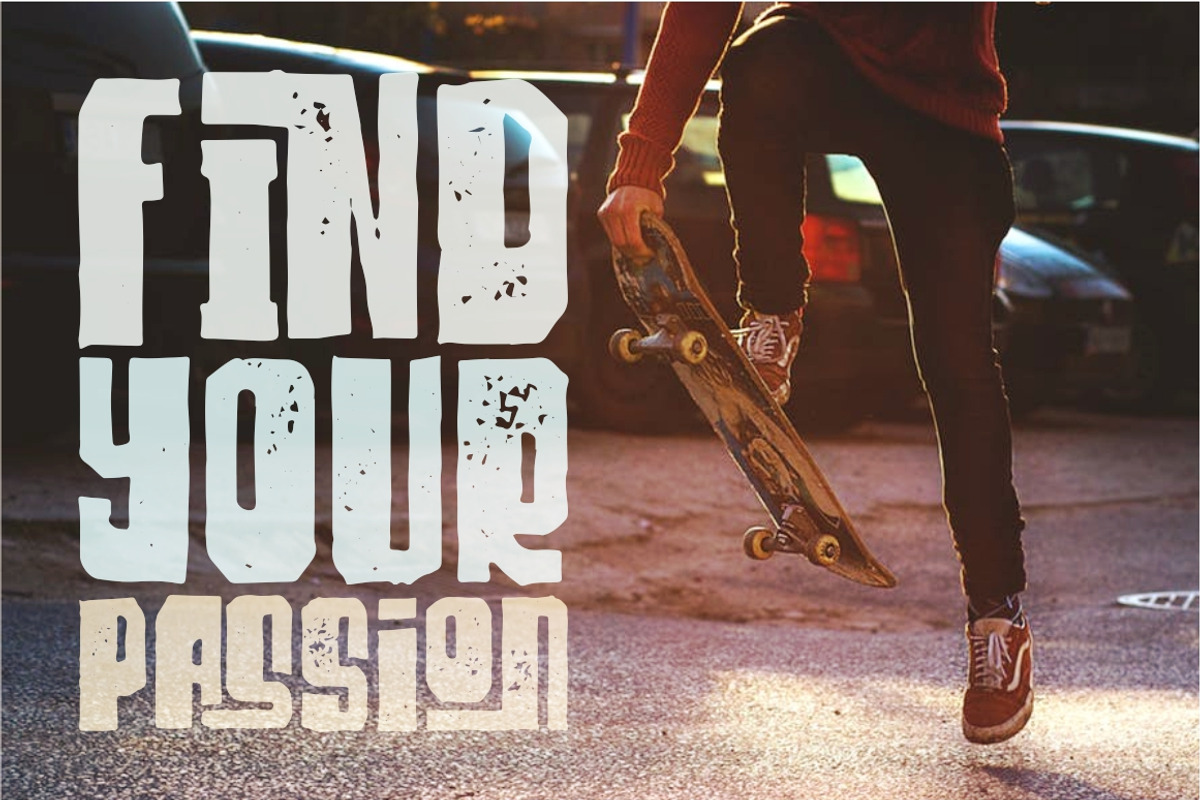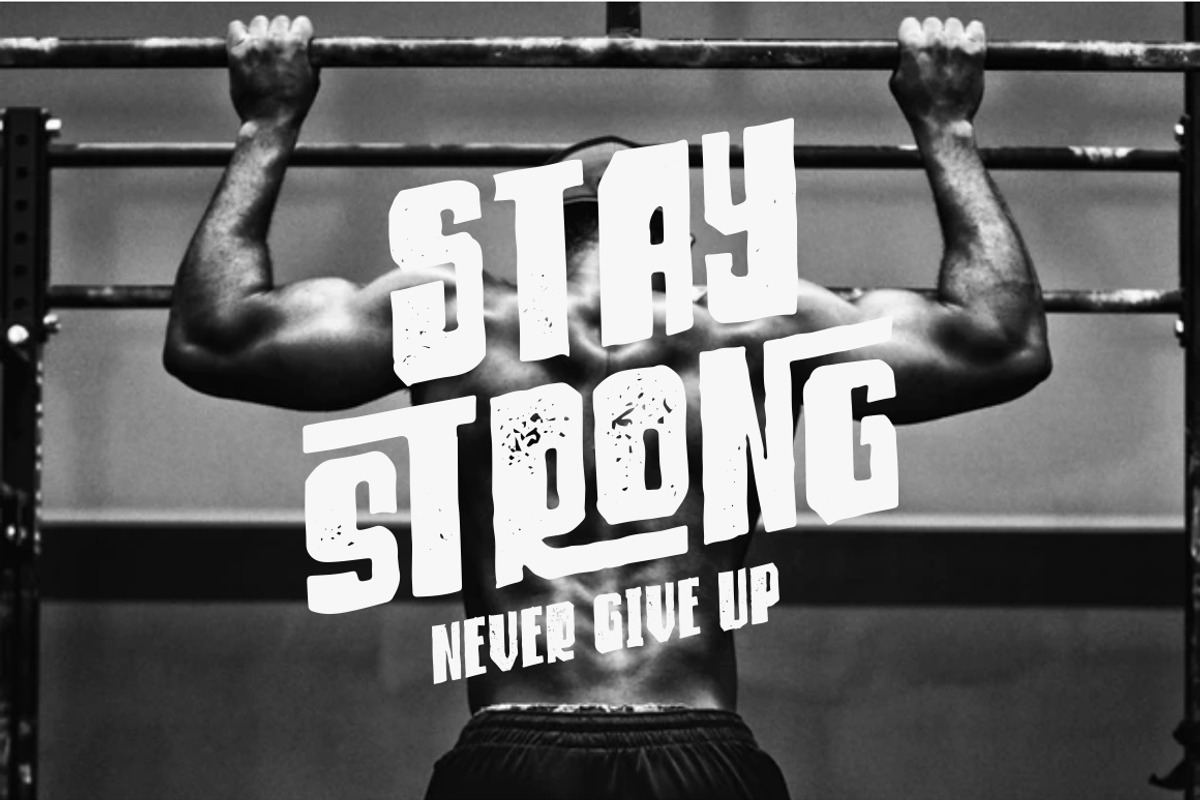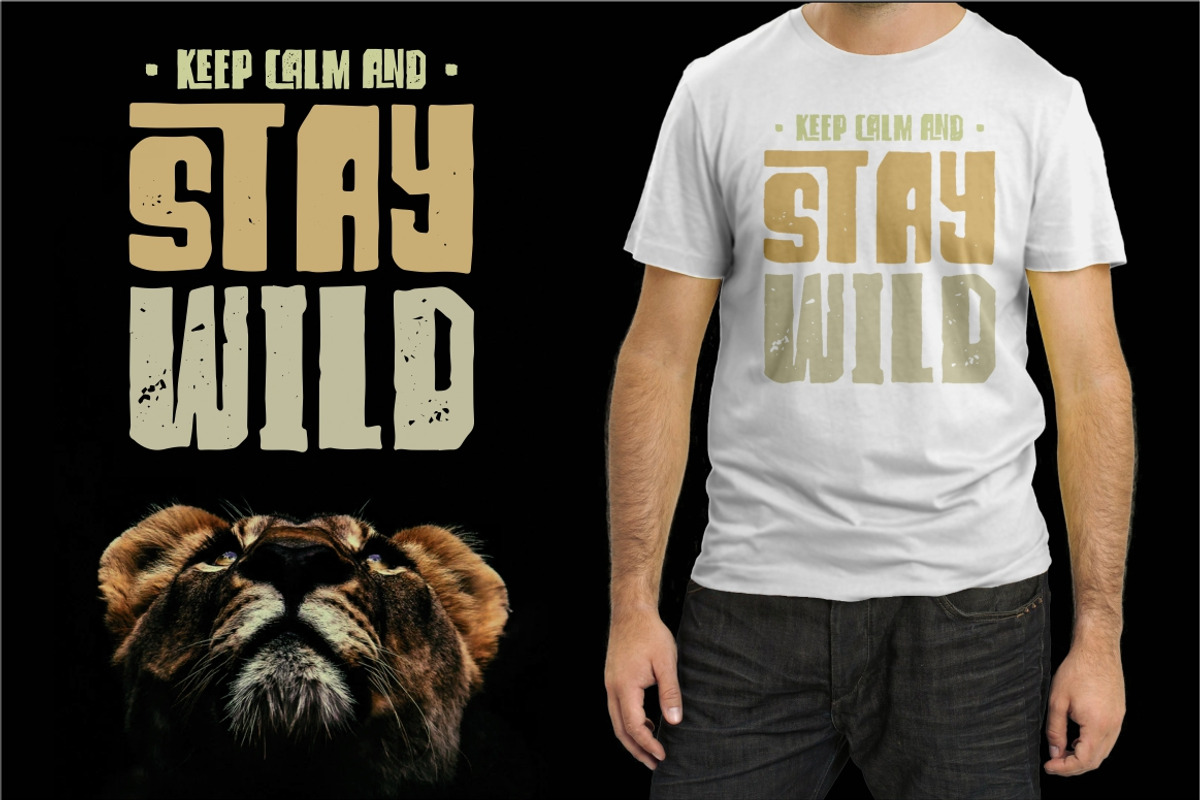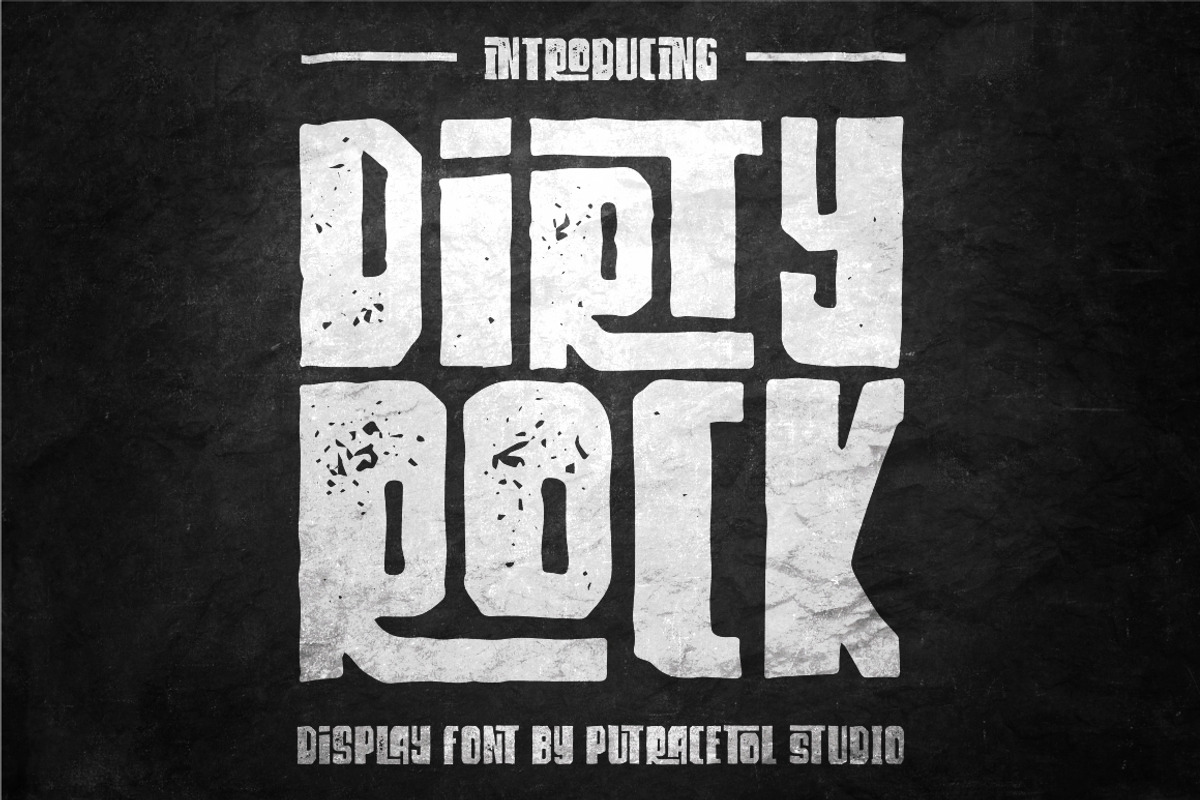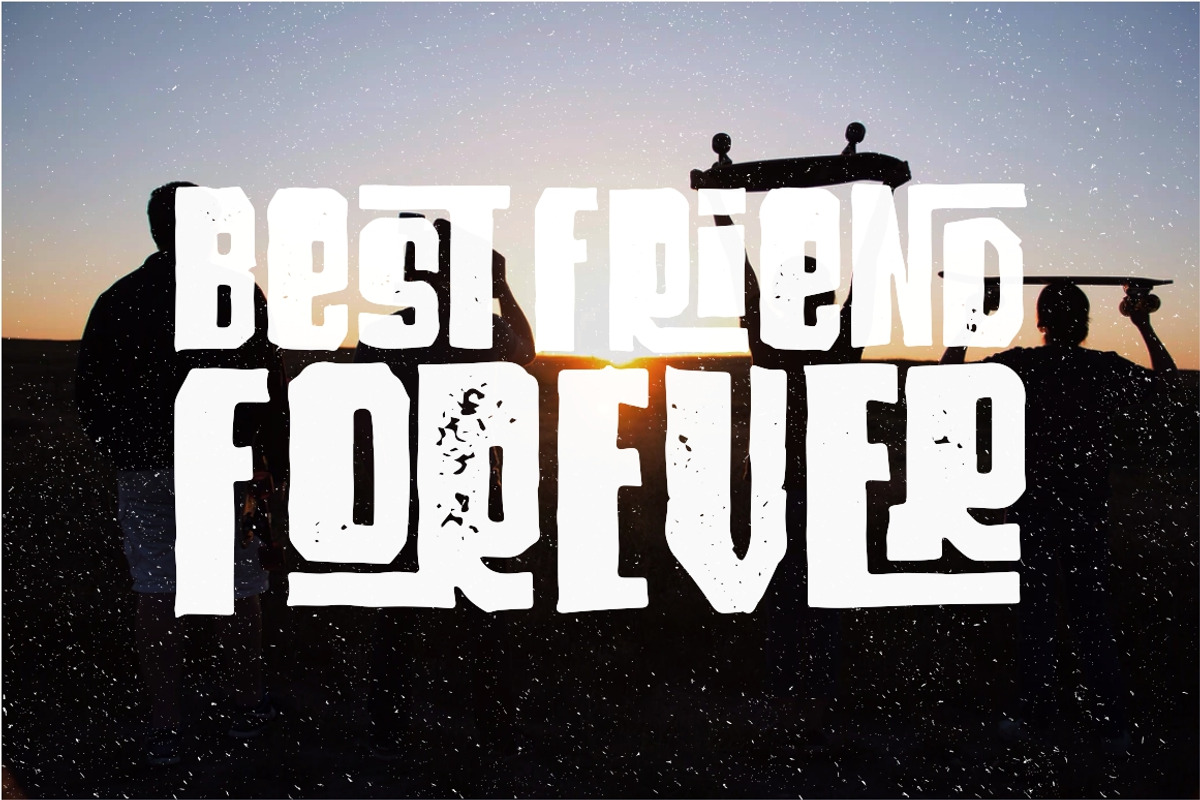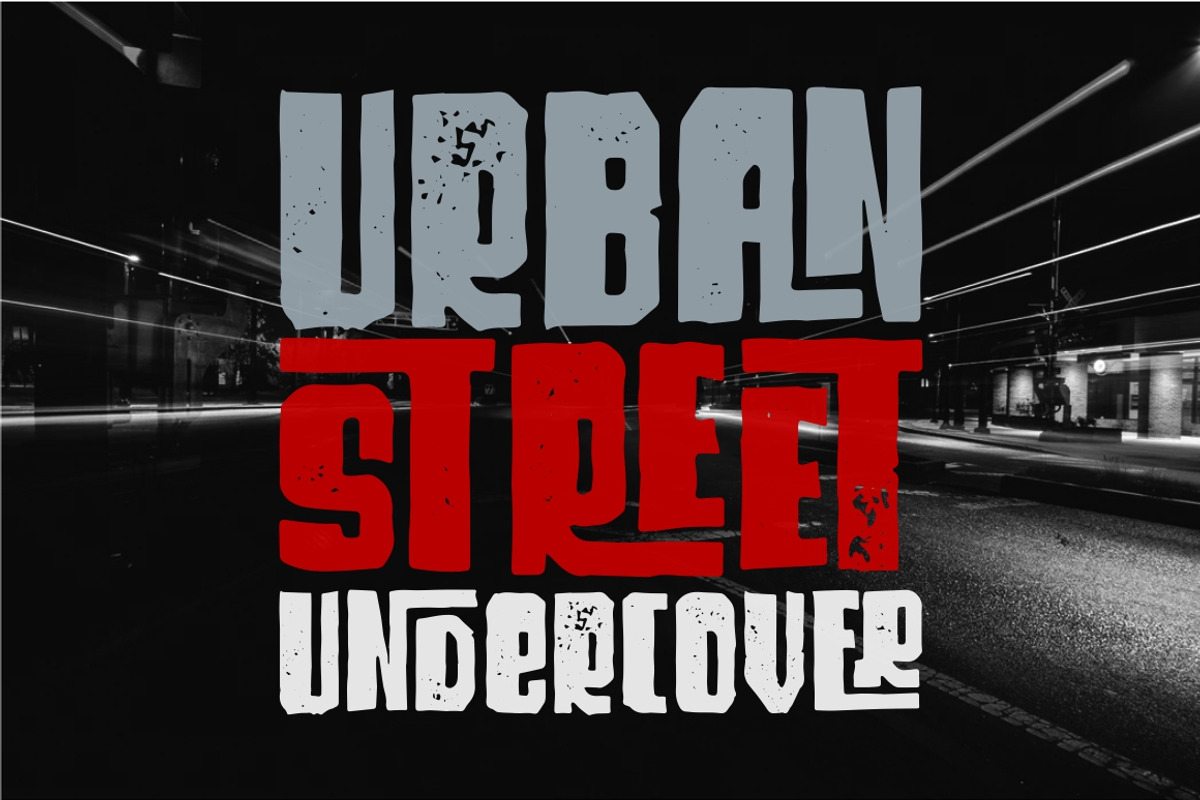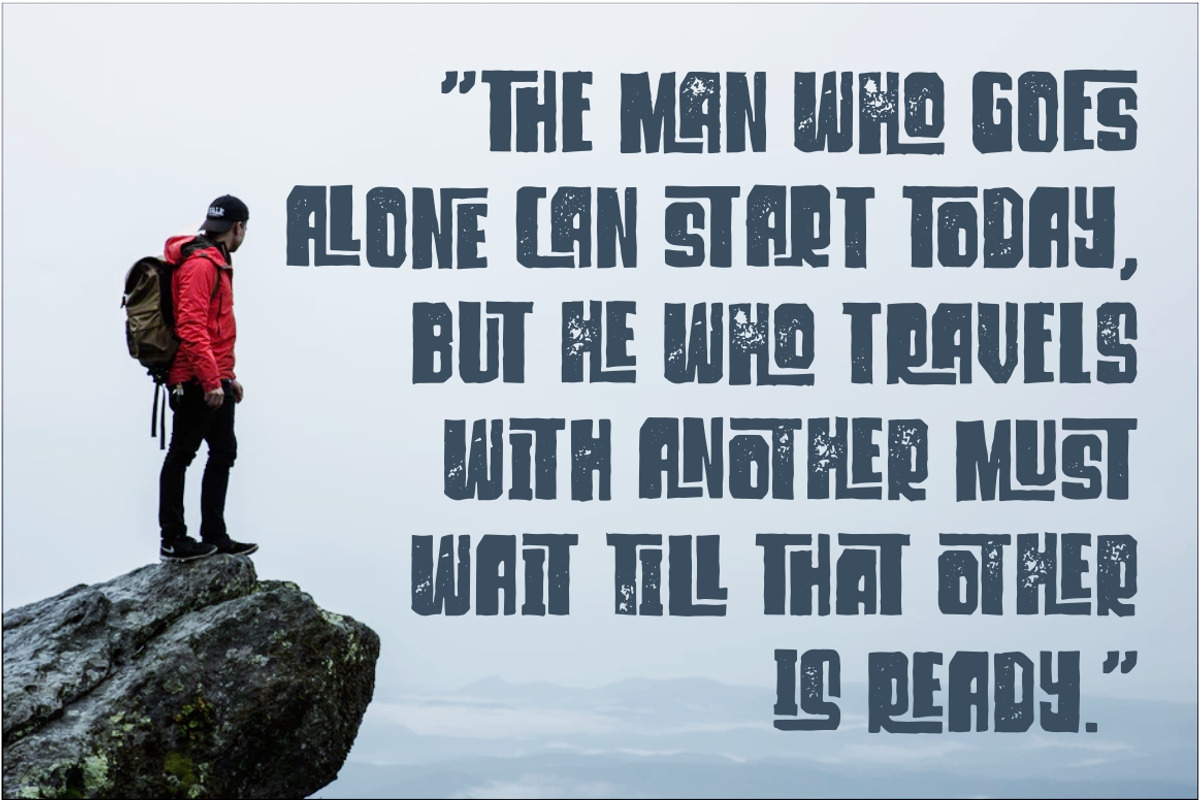
Dirty Rock Typeface
Introducing DIRTY ROCK is an display font. Dirty and rock!! This tyepeface is Unique and very suitable for logos, Tshirt, apparel, quote, handwritten quotes, product packaging, tittle header, poster, merchandise, social media, labels, branding & greeting cards.
Why Dirty Rock Typeface is worth a look
Dirty Rock Typeface by PutraCetol Studio fits naturally into Branding, posters, packaging, typography.